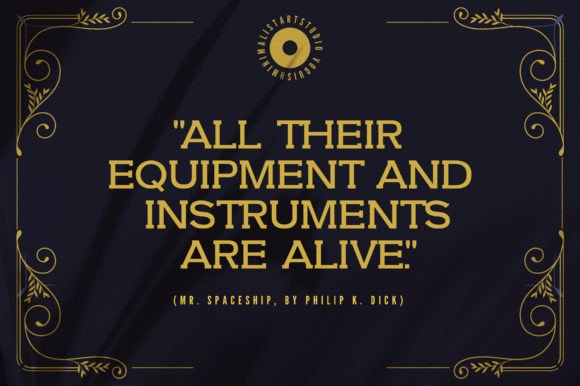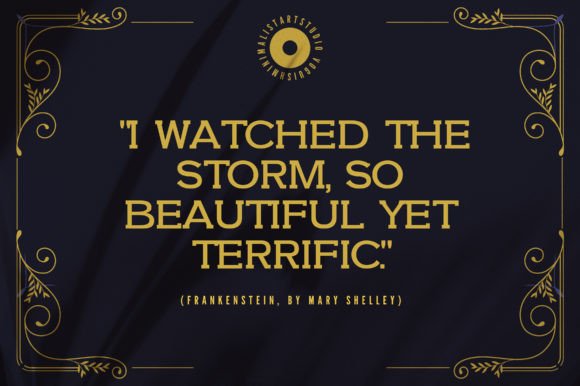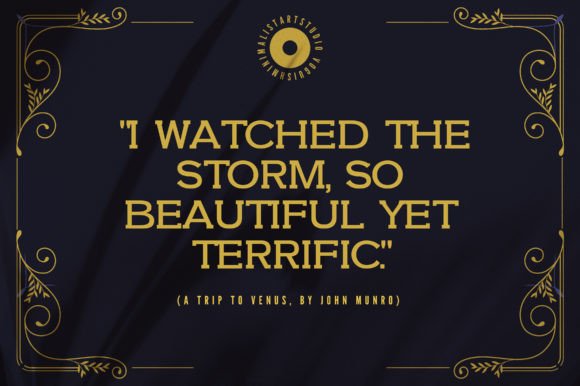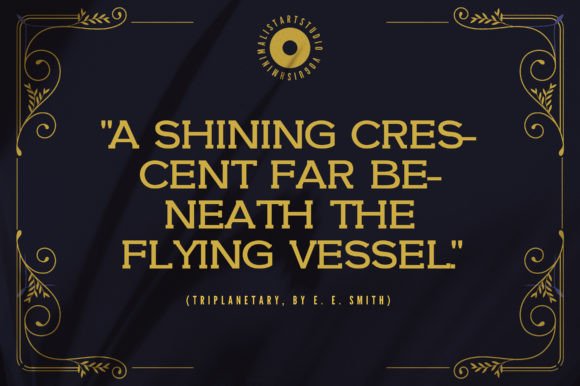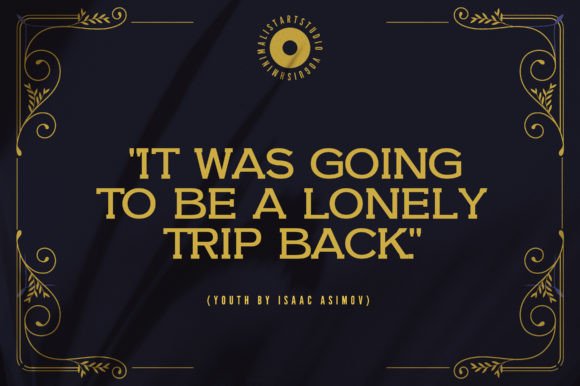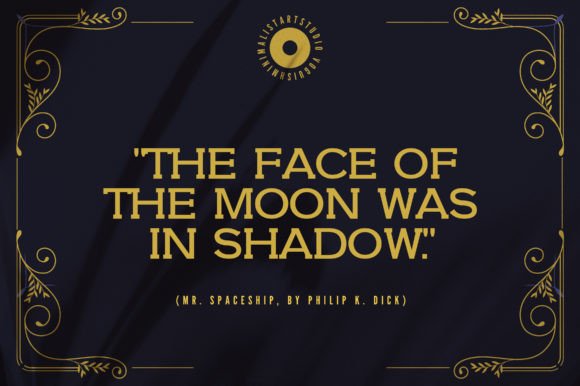
Introduction to Konico Font
Konico is a thick, wonderful and elegant display slab serif typeface.
No matter what design theme you are working on, this font will be a great addition to your font library Add it to your creations, and you will notice how it elevates them to the highest level.
Key Features of Konico Font
Why Choose Konico Font?